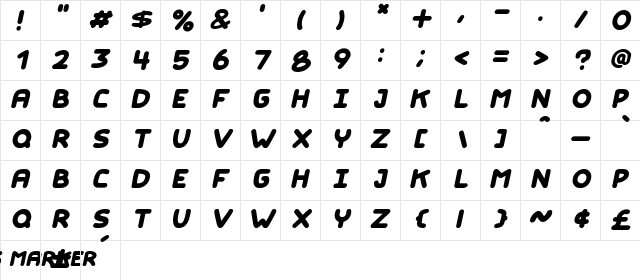
Kids Marker Italic
| Designer | Joseph Dawson |
Design Context for Kids Marker Typeface
Kids Marker has an approachable, lighthearted character — its loose, expressive forms are well-suited to children's content, casual branding, and fun-first design. Its italic angle brings a sense of urgency and motion to the letterforms.
Font Pairing: Pairs well with a rounded or humanist sans for body copy, maintaining the friendly tone without relying on Kids Marker to carry extended reading.
Pro Tip: Avoid using Kids Marker for long passages of text — it works best for headlines, labels, and short calls to action.